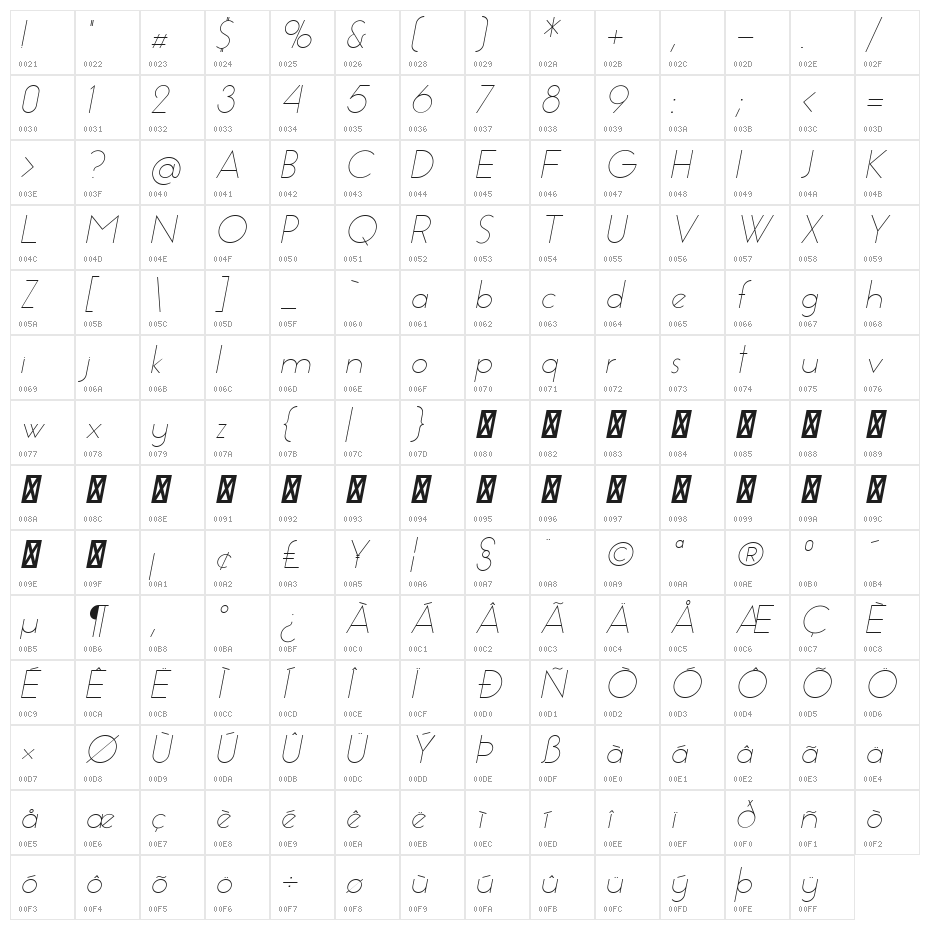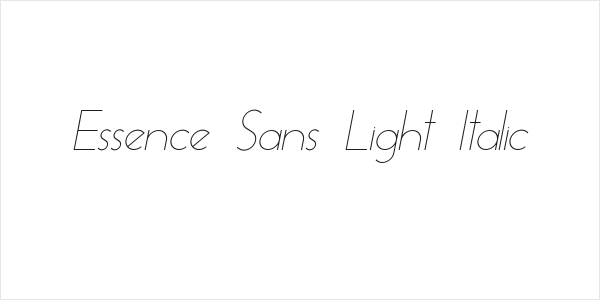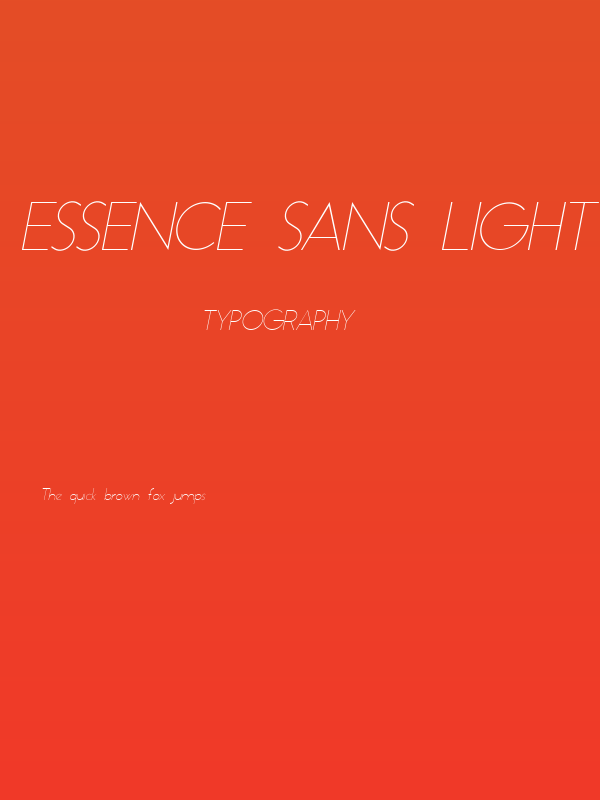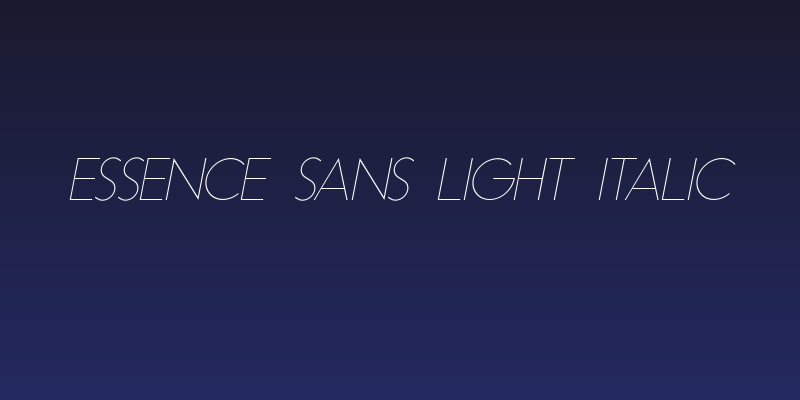
Essence Sans Light Italic Font
Essence Sans Light Italic Description
This font exhibits a sleek and modern aesthetic with its thin, elongated letterforms and subtle italic slant. The characters are crafted with a minimalist approach, featuring clean lines and a consistent stroke width that conveys elegance and sophistication. The uppercase and lowercase letters maintain a harmonious balance, while the numerals and special characters integrate seamlessly into the overall design. The font's airy and open structure enhances readability, making it suitable for a variety of applications where a contemporary and refined look is desired.
| Use Case | Headlines, Logos, Editorial design |
| Proposed Projects | Ideal for fashion magazines, luxury branding, minimalist websites, and elegant invitations. |